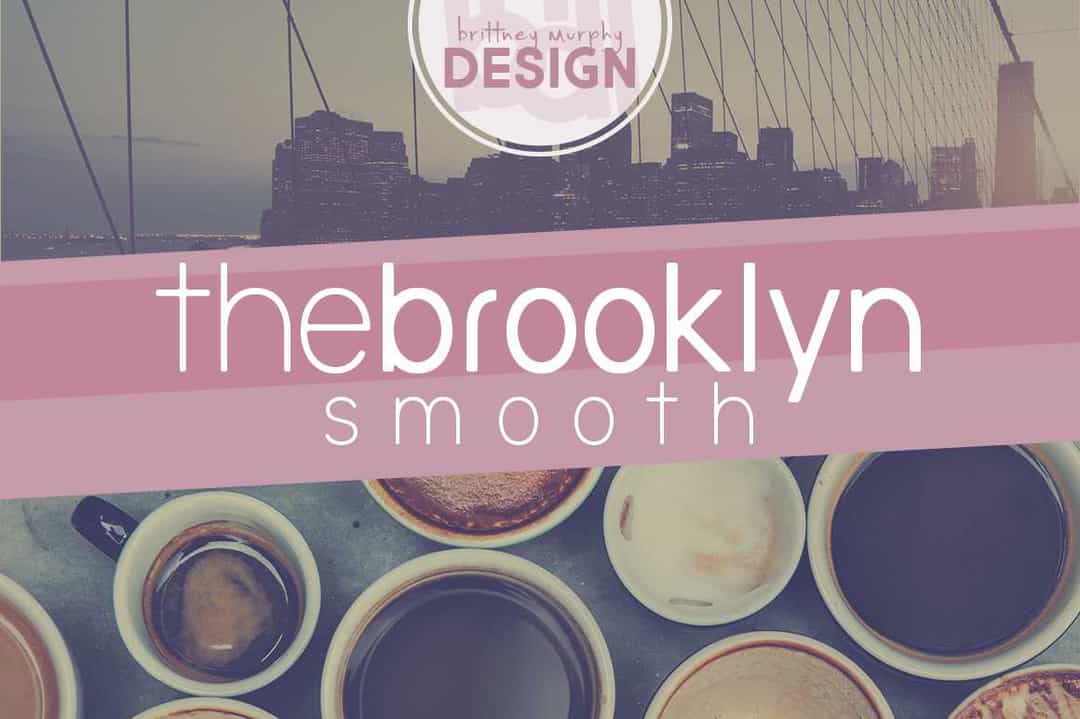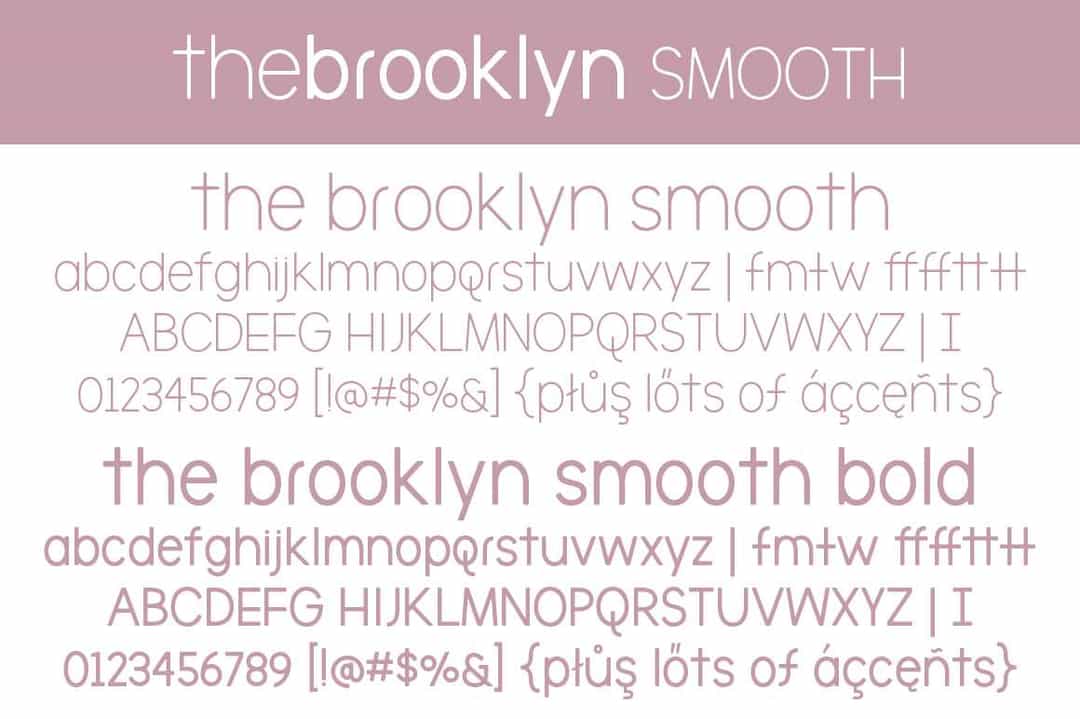
Brooklyn Smooth Harmony looks excellent when paired with script, and when used in texts, bylines, and titles, it is a perfect font. Among them there are over 400 characters with a possibility to include Cyrillic as well as Latin accentuated characters.